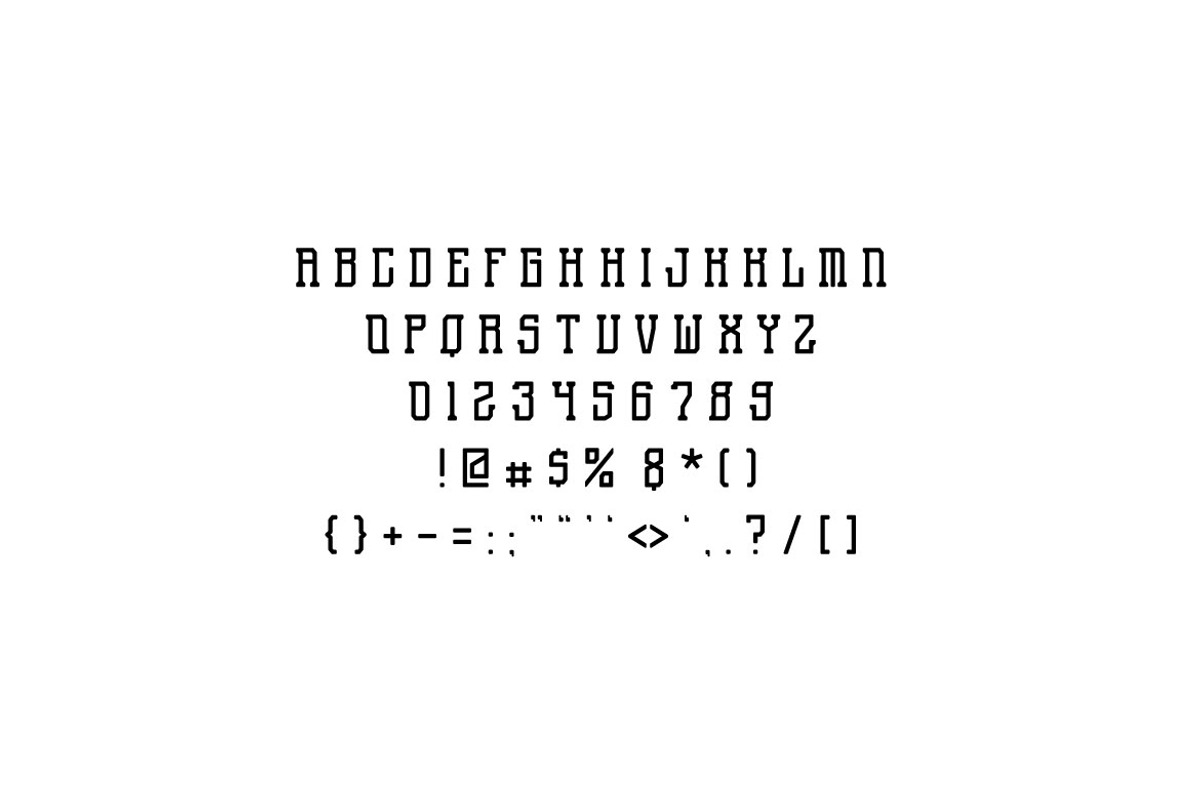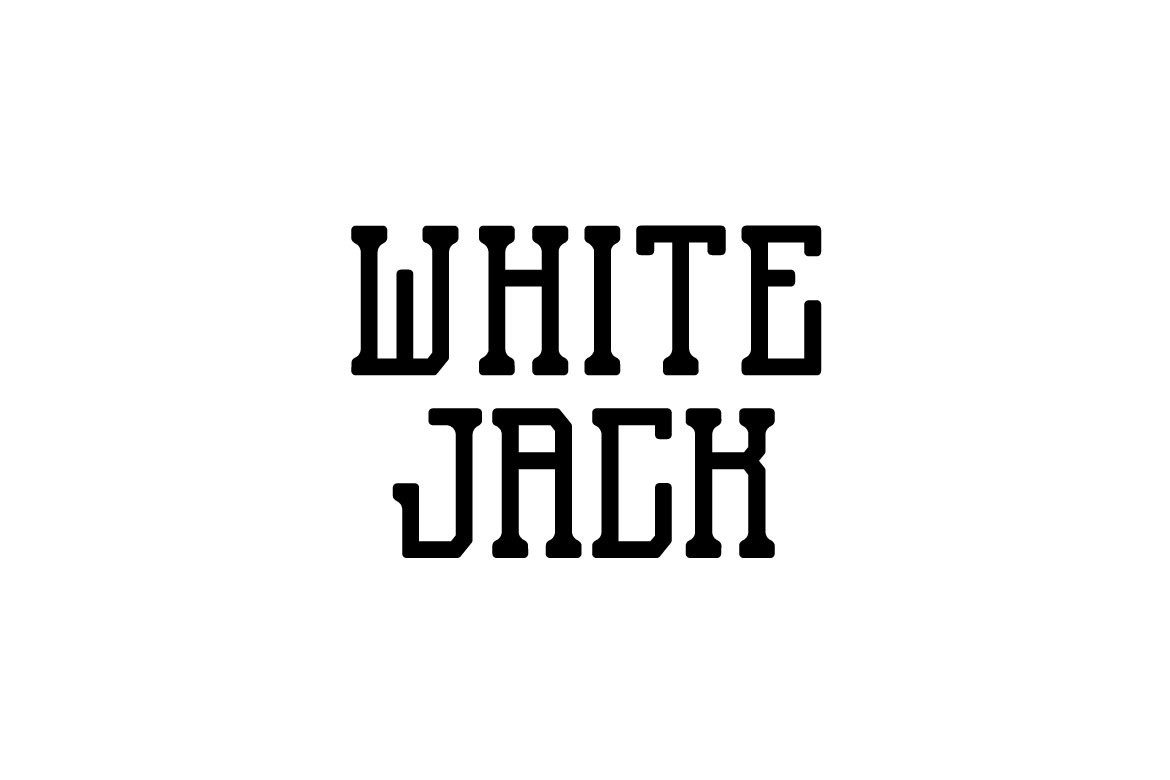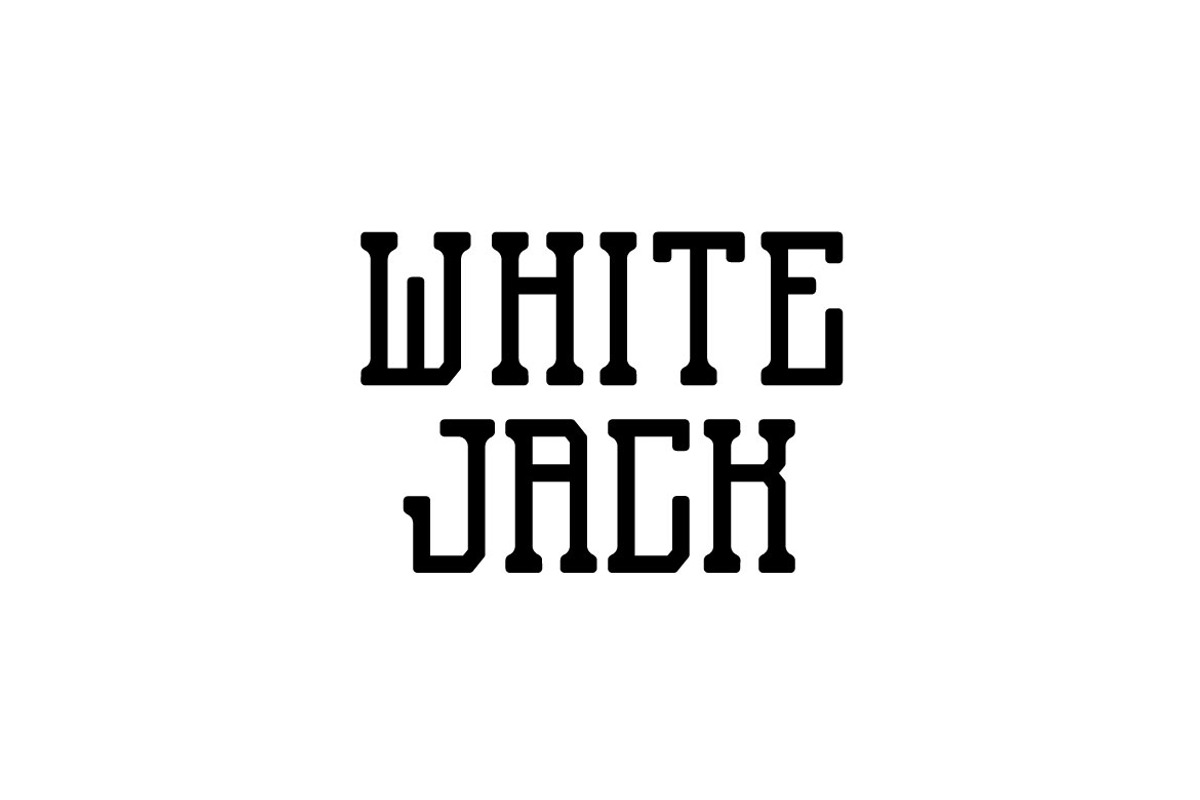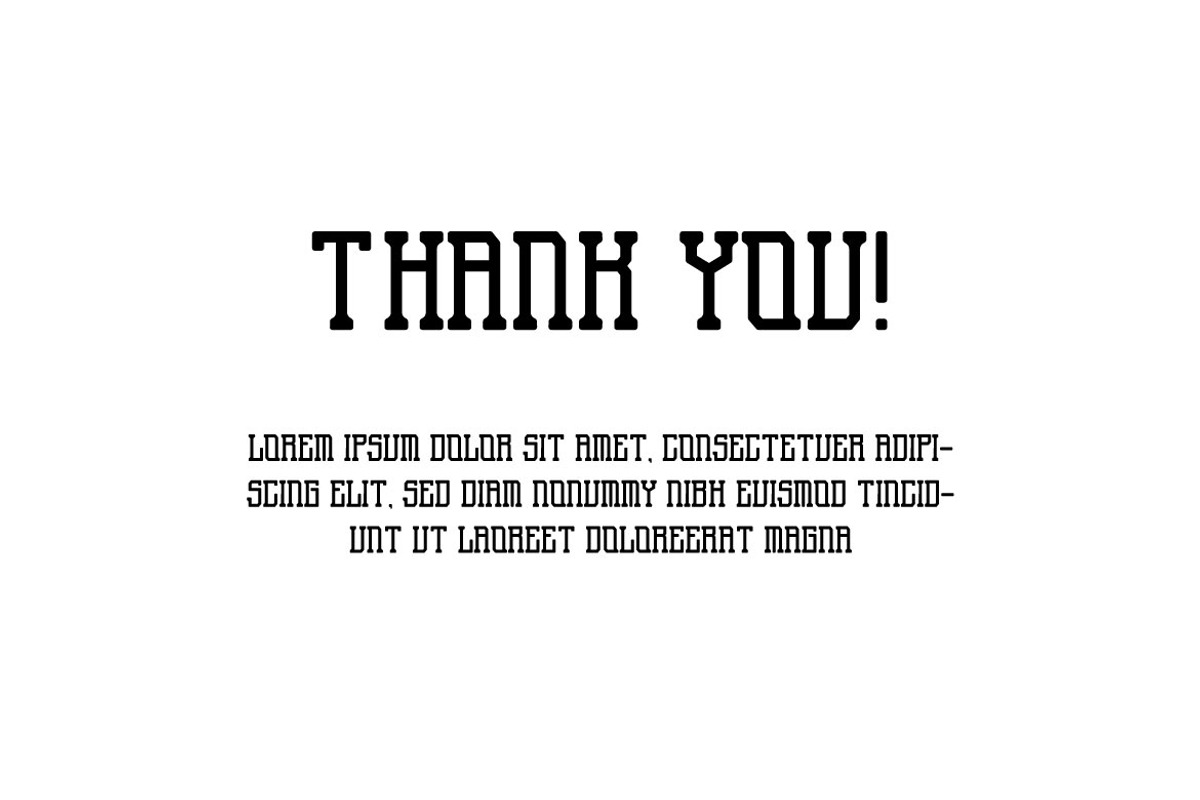
White Jack - Modern Display Font
White Jack is modern display font. It brings a professional and firm look with its minimalist style. It suits perfectly in the any formal forms, such as in the title of a magazine, headline, newspaper, office work, poster, book cover, logo, banner, also it can be used in any-scale artwork. Black Jack is on the all capital style.